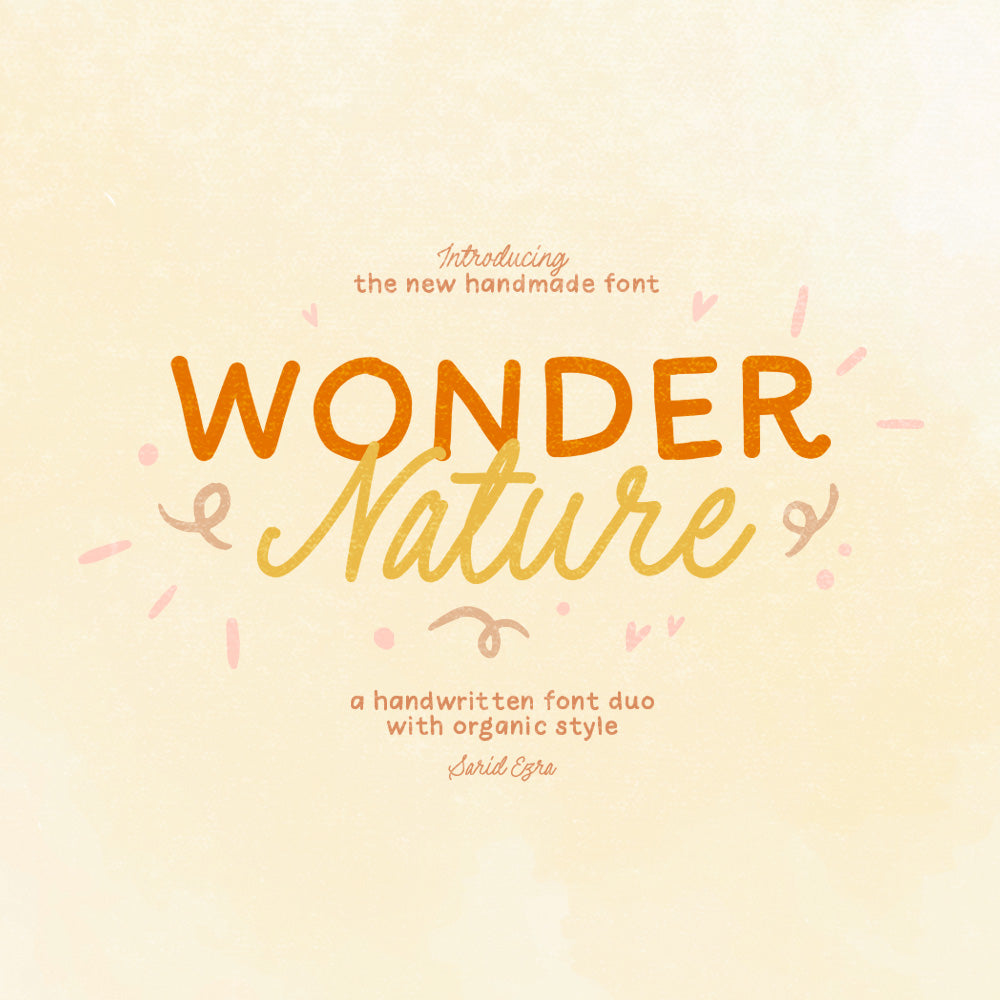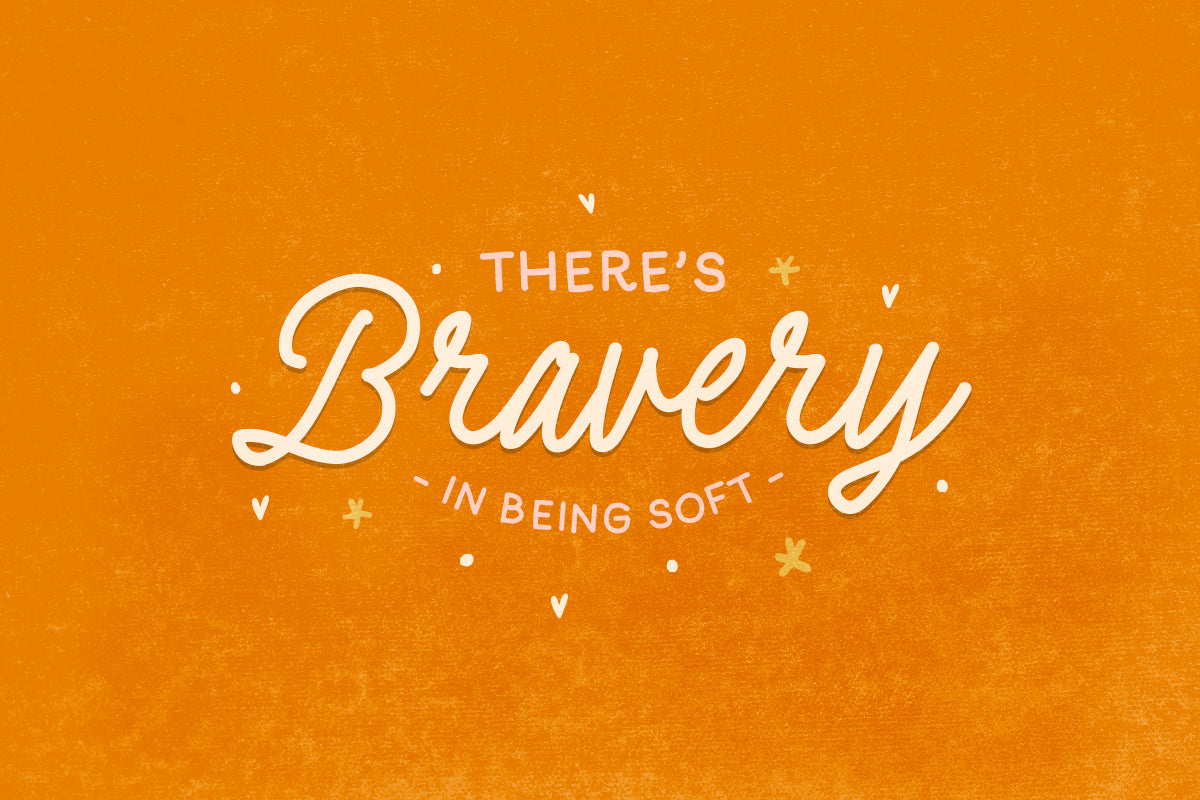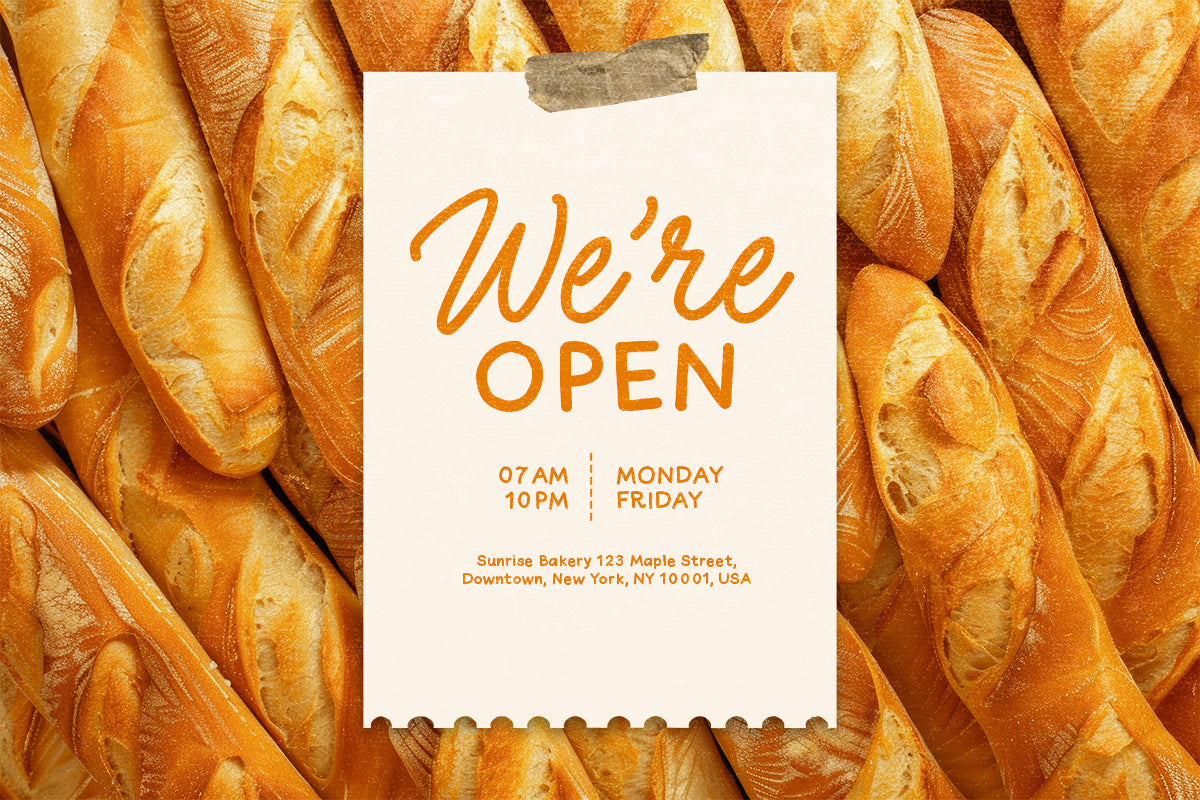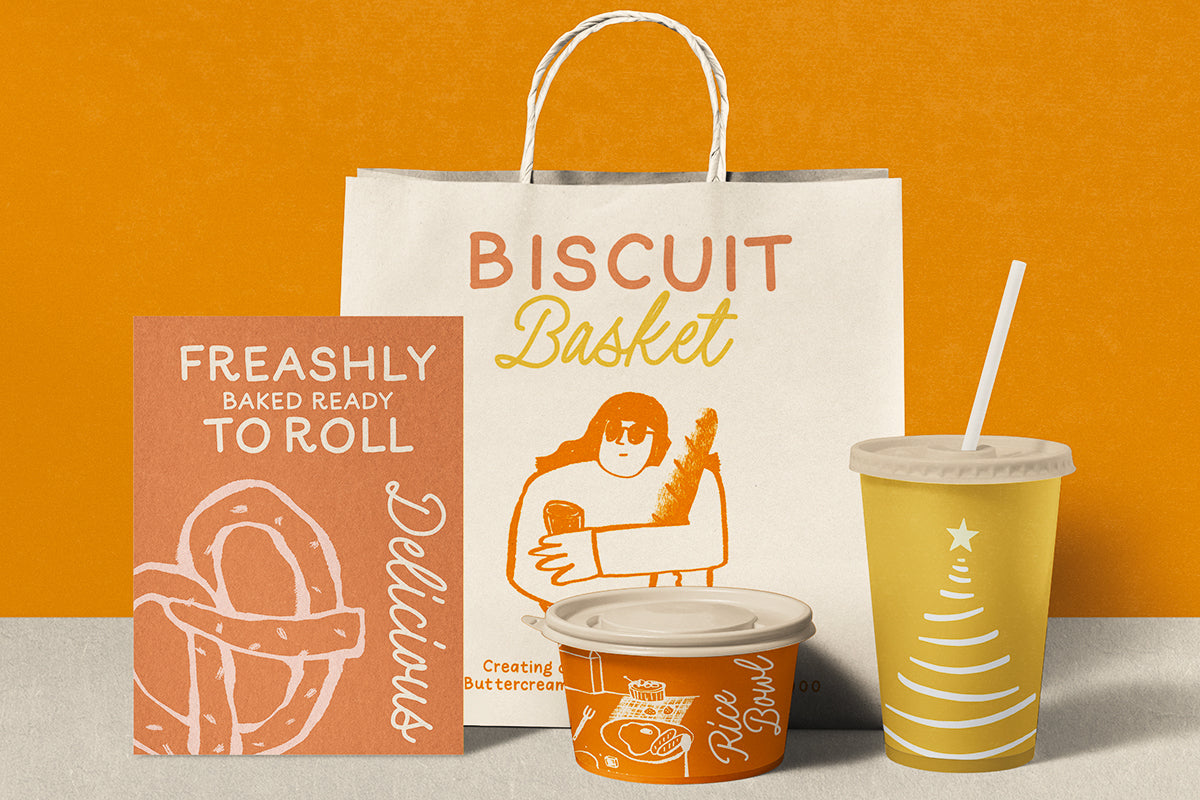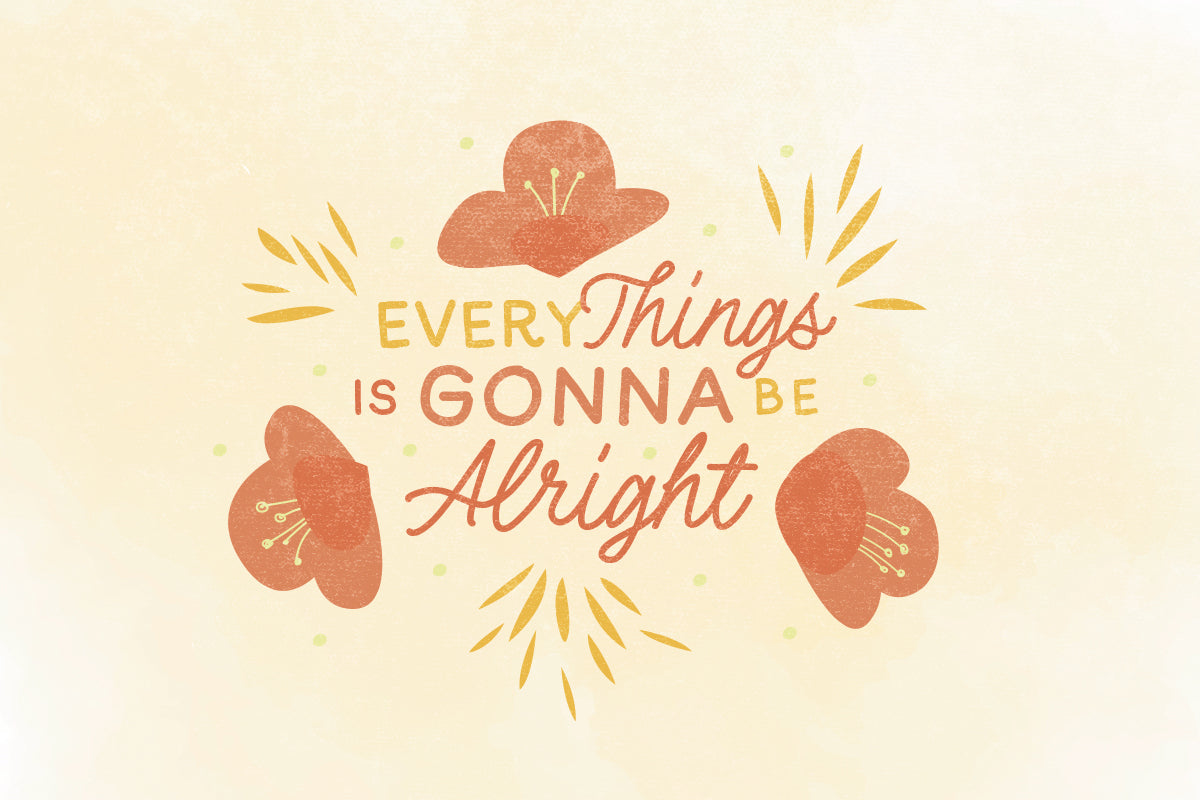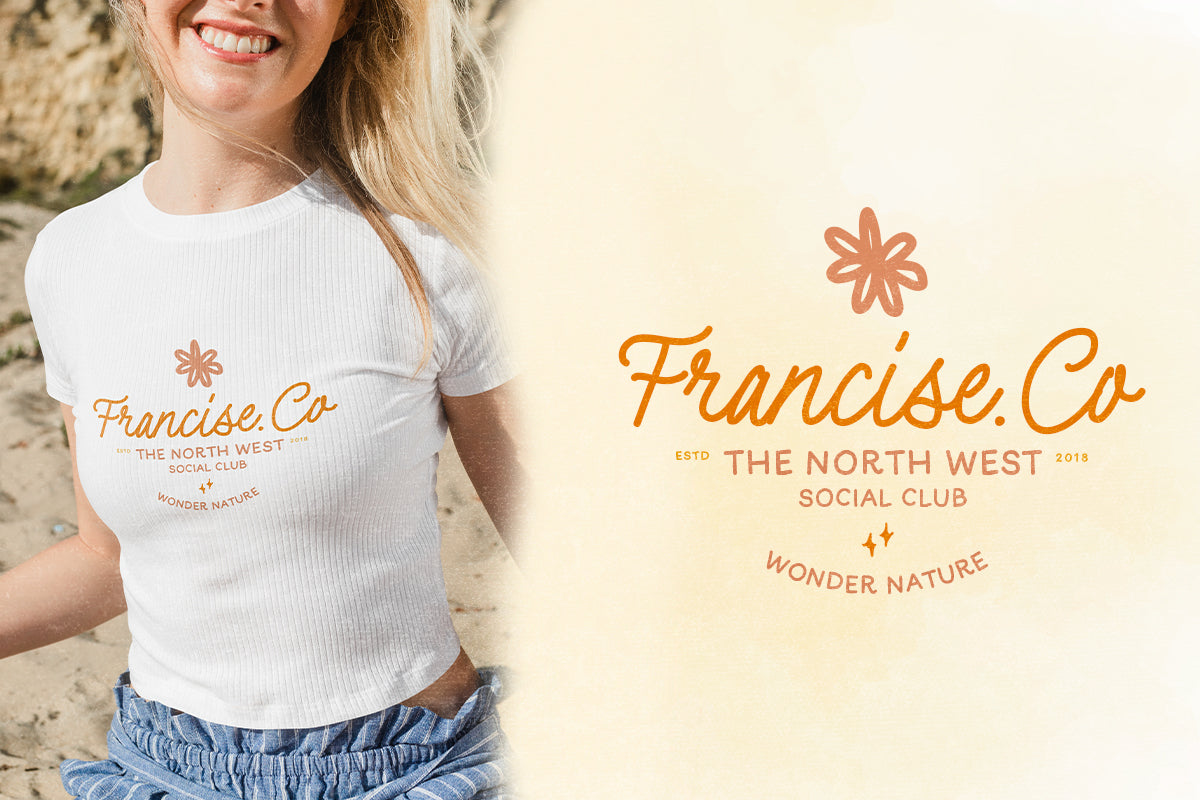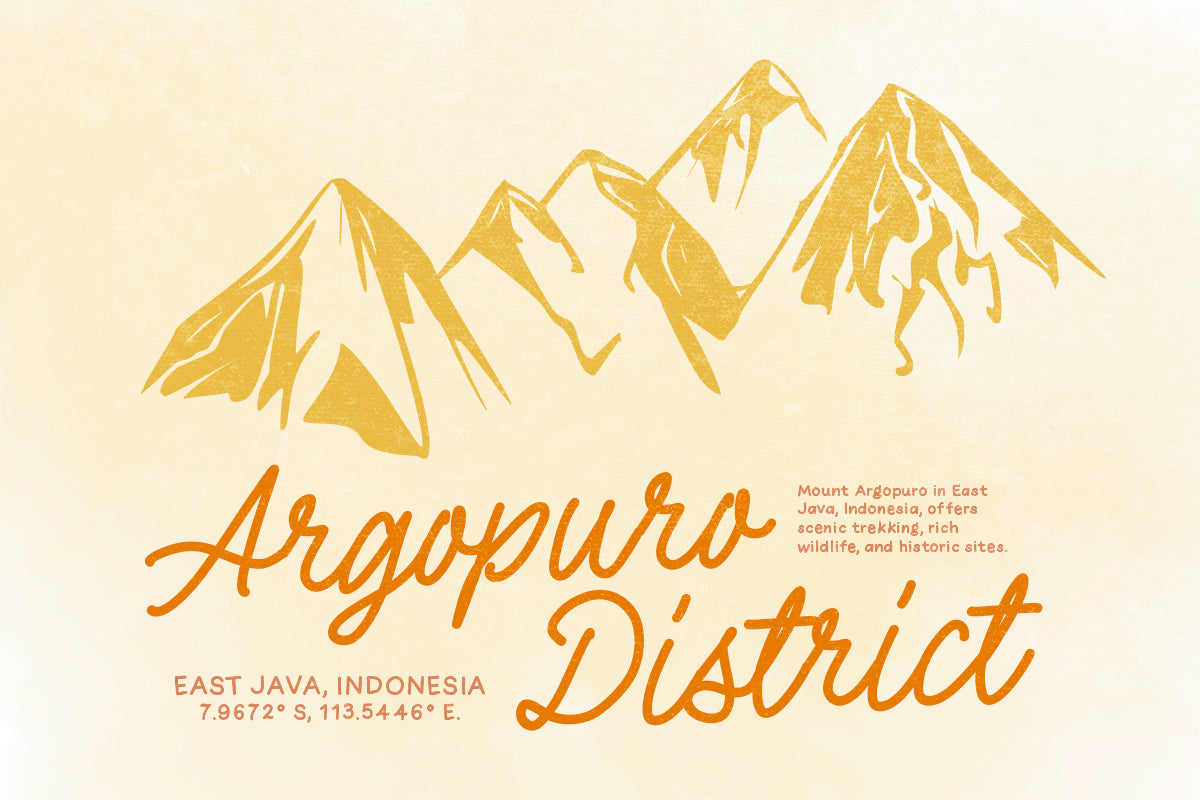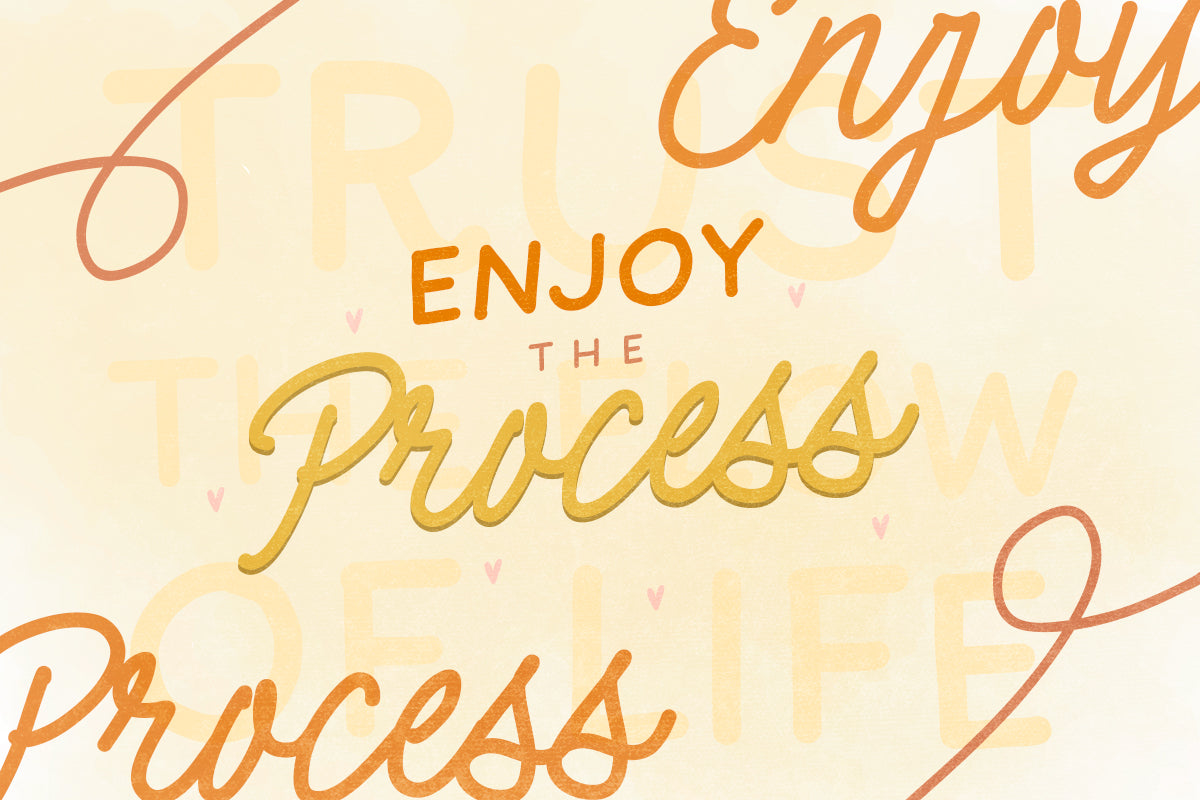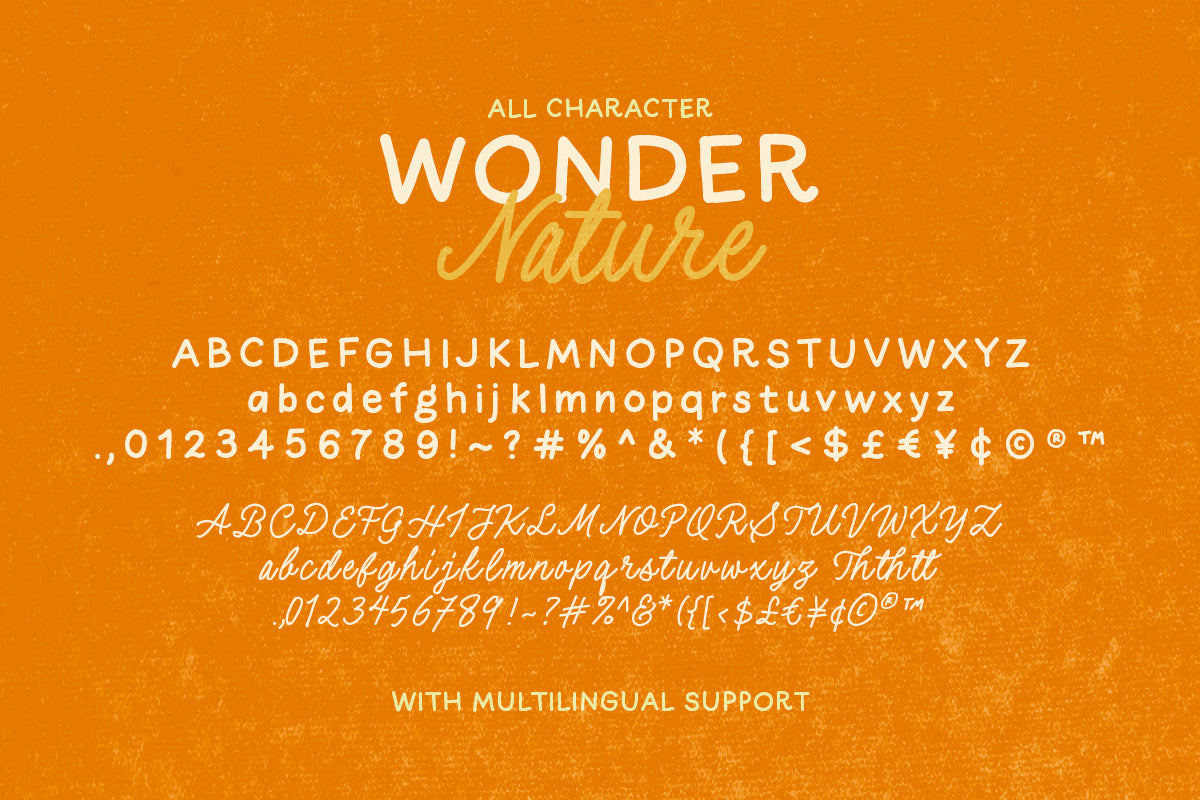
Wonder Nature - Monoline Font Duo
Wonder Nature is a monoline font duo that includes both Script and Sans styles, designed to complement each other. It features full multilingual support and is suitable for various design projects.